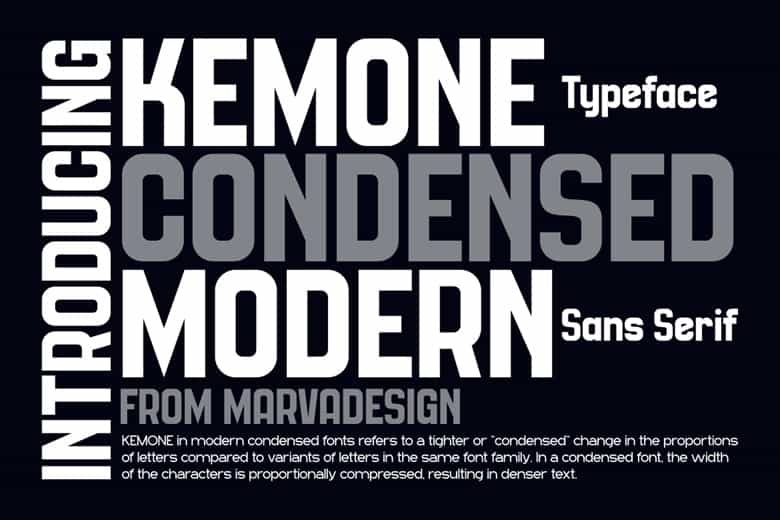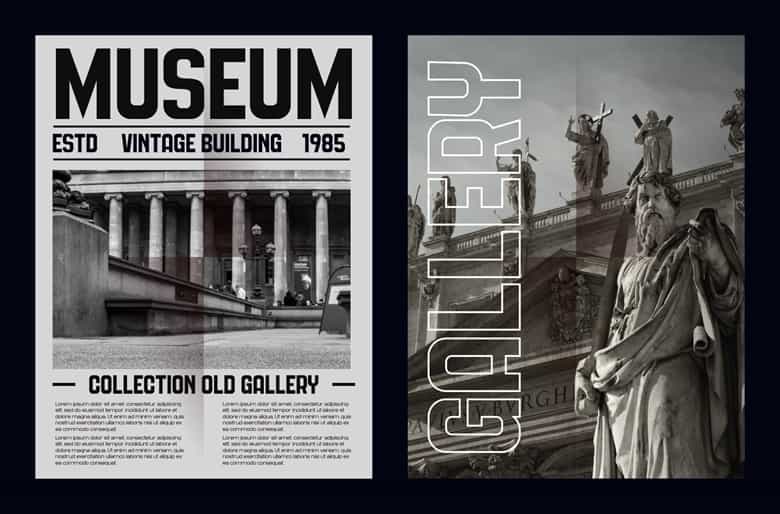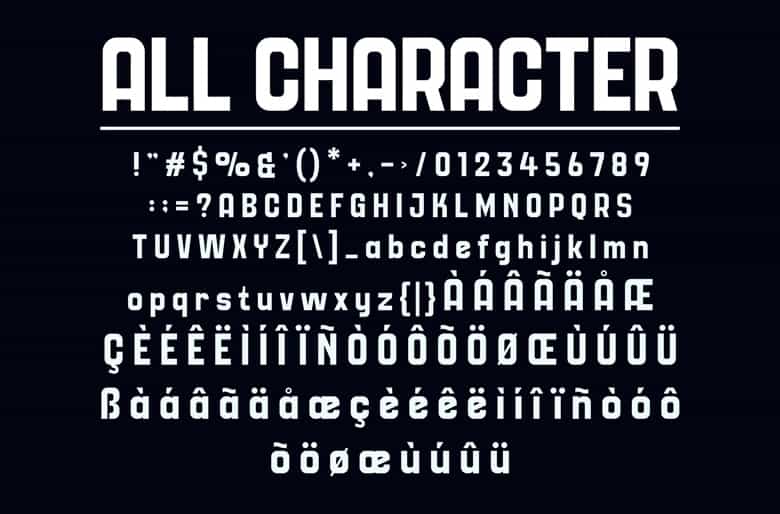
Kemone is a new condensed sans serif typeface. It’s slim and elegant, excellent for increasing text density in crowded areas. Great for headlines and logos and any other work where a modern and minimalist appearance is required.